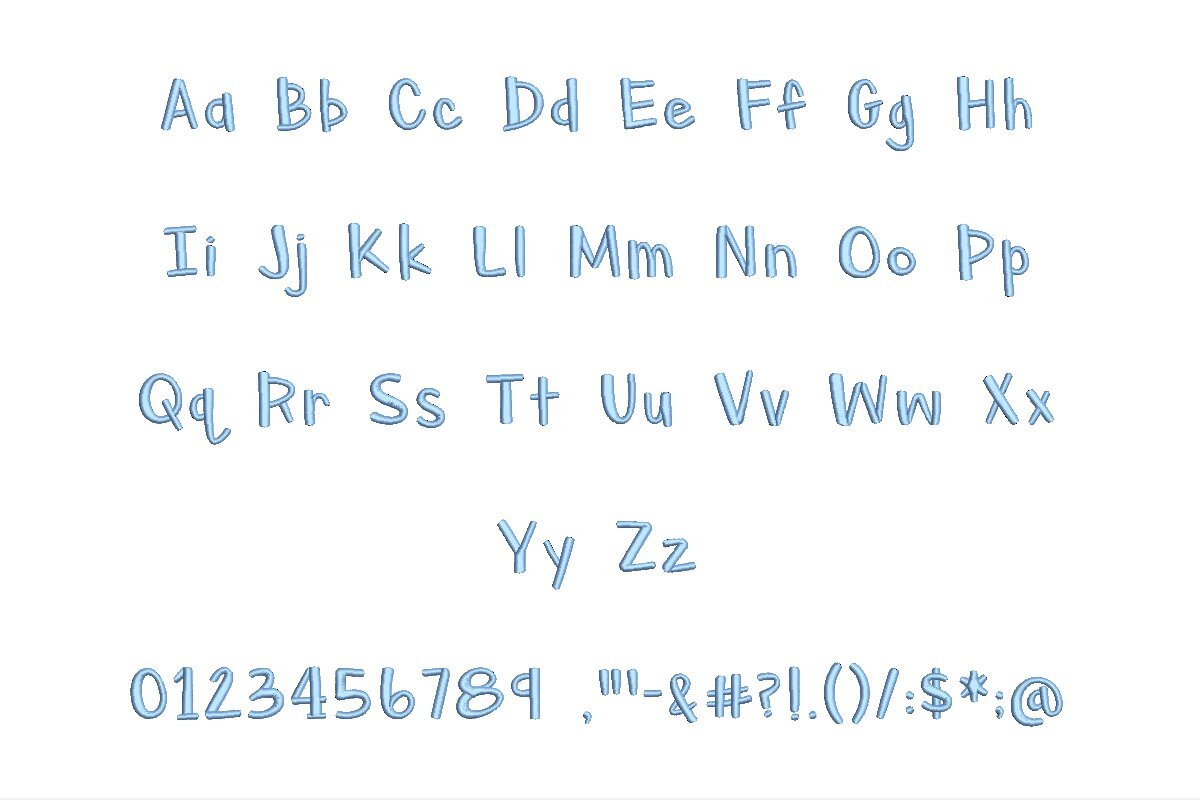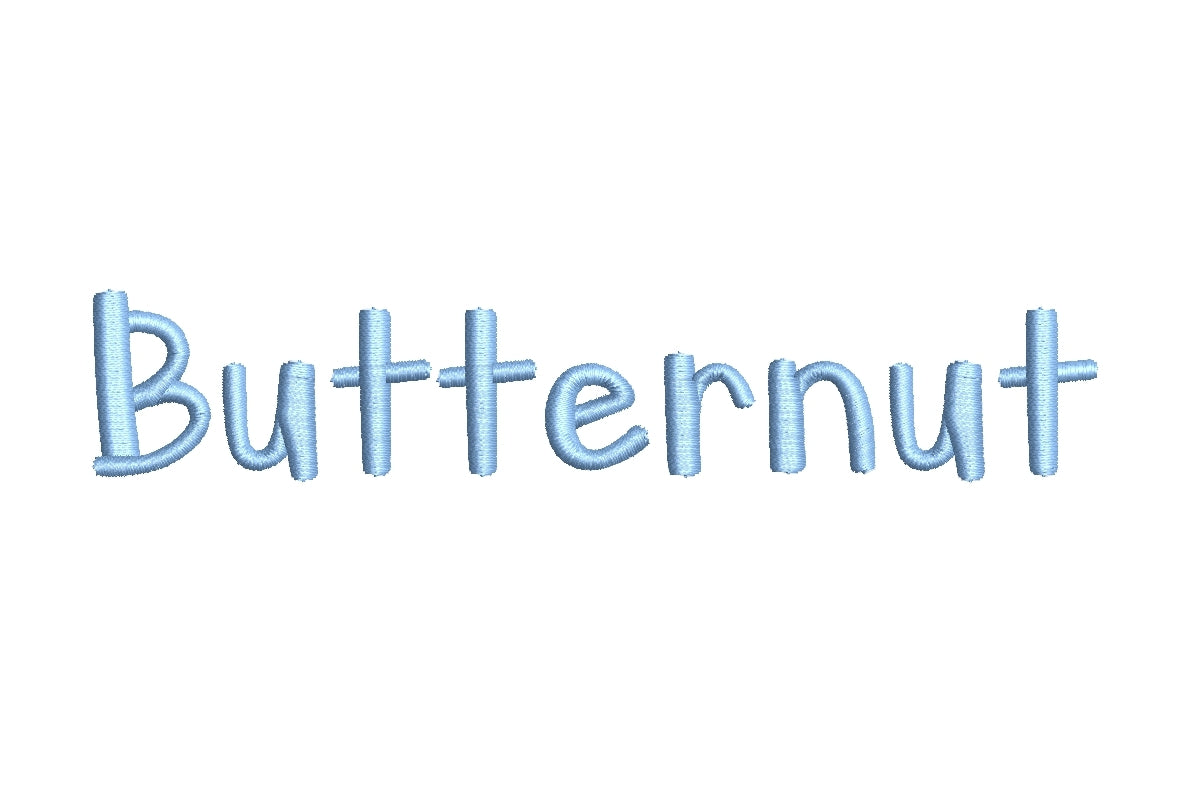
Butternut ESA Font
Discover the Butternut ESA Font, your key to unparalleled embroidery creativity. Meticulously designed for seamless compatibility with Wilcom Studio e4.5.6 and Hatch 3 versions and beyond, this font empowers your projects. Whether you're a seasoned embroiderer or a novice, Butternut ESA simplifies your creative journey. Its effortless integration with Wilcom Studio and Hatch guarantees hassle-free digitizing and stitching. Crafted with precision, this font infuses a touch of charm and sophistication into your designs. Elevate your embroidery work and attain outstanding results with the Butternut ESA Font. Unlock your creative potential and transform your designs with ease.